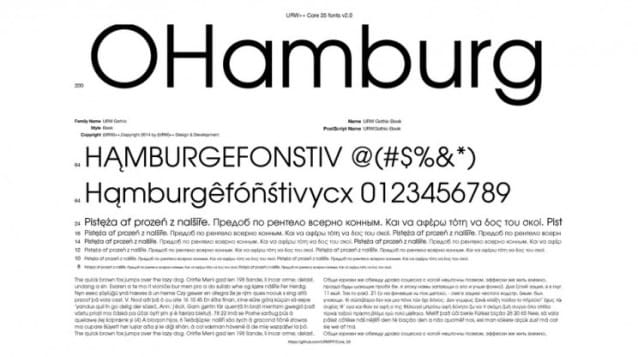
URW Gothic Font
URW Gothic Font belongs to a category of geometric sans sherif fonts, that was created in 1920s. The main feature of this category is geometric architecture of shapes.
URW Gothic family includes two weights and corresponding Italics. It’s perfect for headlines, brief texts used on any screen, print materials as well as logos.